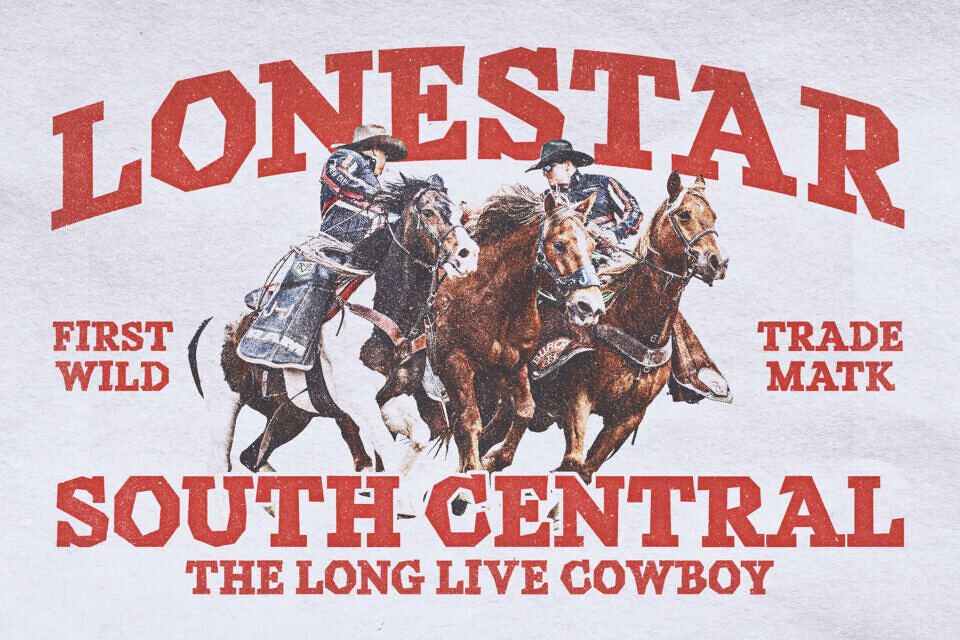
Union Rodeo Font
Union Rodeo is a bold slab serif font inspired by classic Western typography, vintage rodeo posters, and old American frontier aesthetics. Designed with strong geometric shapes and powerful letterforms, this font delivers a rugged, masculine, and confident character that instantly commands attention.
With its heavy strokes and sharp slab serifs, Union Rodeo is perfect for projects that need a strong visual impact. The font works exceptionally well for logos, branding, posters, apparel design, signage, packaging, headlines, book covers, movie titles, and vintage-style layouts. Whether you’re creating a modern western brand or a retro-inspired design, Union Rodeo brings authenticity and boldness to your work.